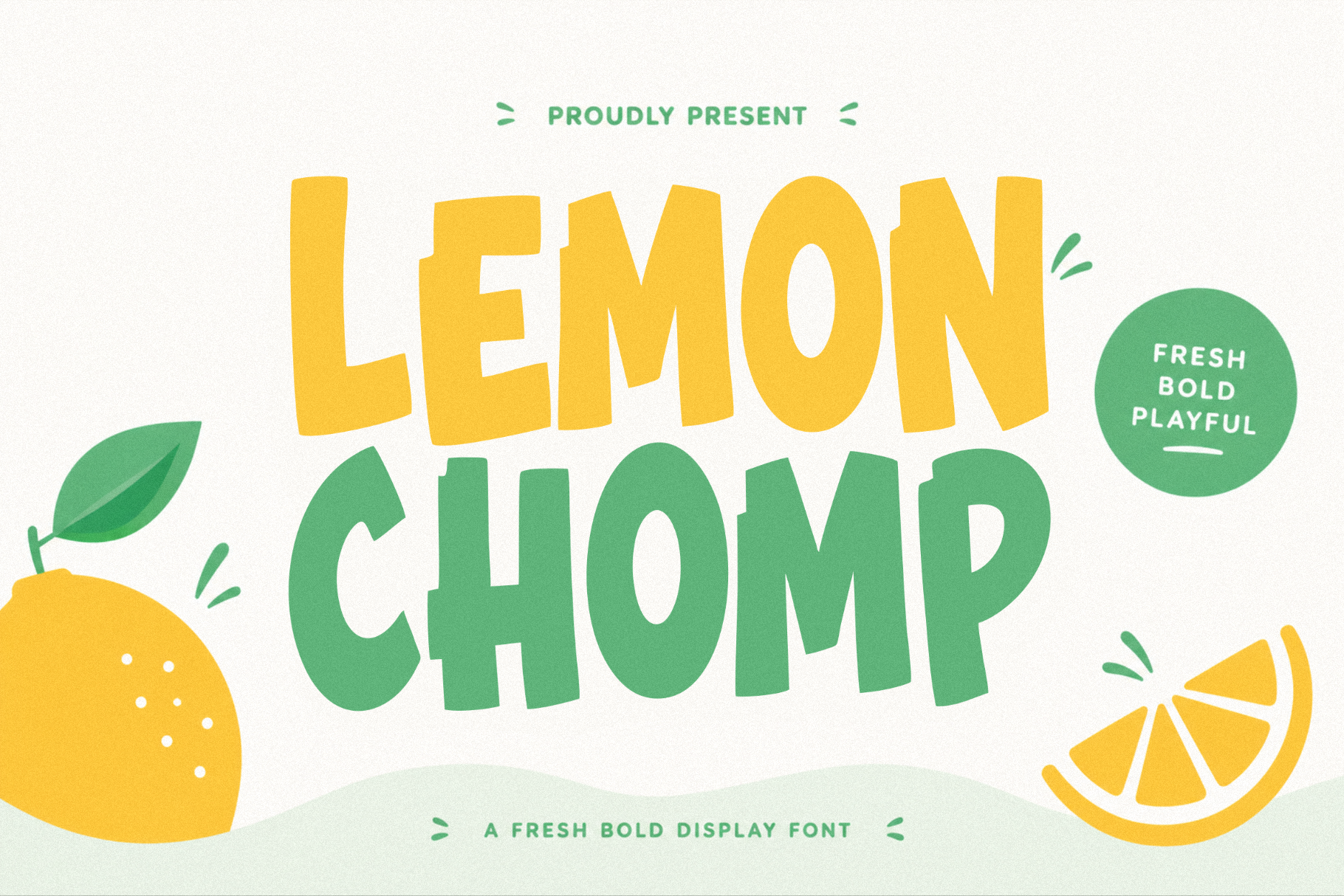
Lemon Chomp - Fresh Display Font
Bring playful energy and fresh character into your creative projects with Lemon Chomp – A Fresh Bold Display Font. Designed with chunky letterforms and an expressive display style, this font is made to create a strong visual impact while keeping a fun and approachable personality.
Lemon Chomp works perfectly for food-related projects, drink menus, packaging concepts, snack labels, café signage, children’s graphics, seasonal campaigns, social media visuals, and promotional materials. The bold structure helps text remain clear and readable while adding an energetic appearance that instantly attracts attention.
Its rounded edges and lively shapes make every headline feel dynamic. Whether used on product displays, menu headers, posters, stickers, banners, or digital content, Lemon Chomp helps create designs that feel fresh and memorable without becoming overly complicated.
The font includes uppercase letters, numbers, punctuation marks, and symbols, giving designers flexibility when building layouts for print and digital use. Multilingual support also allows wider usage across international projects and audiences.
* Uppercase Character Set for impactful headlines and display text
* Numbers included for menus, pricing layouts, labels, and promotional graphics
* Punctuation & Symbols for flexible typography arrangements
* Support Multilingual for broader language coverage
* Bold Display Style is designed for eye-catching compositions
* Suitable for Print & Digital Projects
* Clear Readability at large display sizes
* Playful Character Shapes for creative layouts
Designers enjoy using Lemon Chomp because it provides a strong visual presence while remaining easy to apply across different project types. The bold letterforms naturally become the focal point of layouts, making it useful for headlines, menu boards, product packaging, posters, stickers, promotional graphics, and themed visuals.
Its playful personality helps communicate freshness and energy, especially in food presentations and family-friendly designs. The font also performs well when combined with illustrations, bright color palettes, flat graphics, and organic decorative elements.
Another reason designers choose Lemon Chomp is its versatility. It can move from packaging projects to menu designs, event signage, product labels, and social content while keeping a consistent visual identity. The multilingual support and complete character set make production workflows easier and more flexible.
If your project needs a fresh, bold display font with playful energy and strong readability, Lemon Chomp offers a practical solution for food graphics, menus, labels, packaging concepts, posters, and promotional materials. Its expressive shapes, complete character support, and flexible formats help designers create engaging visuals across both print and digital environments. Add it to your library and bring more flavor and personality into your next design project.